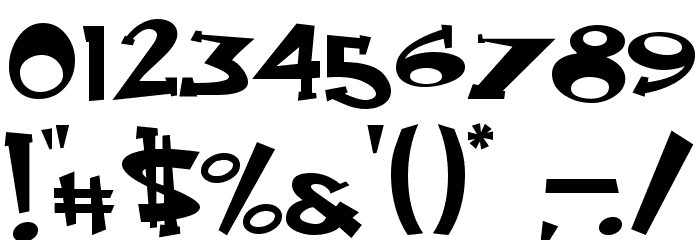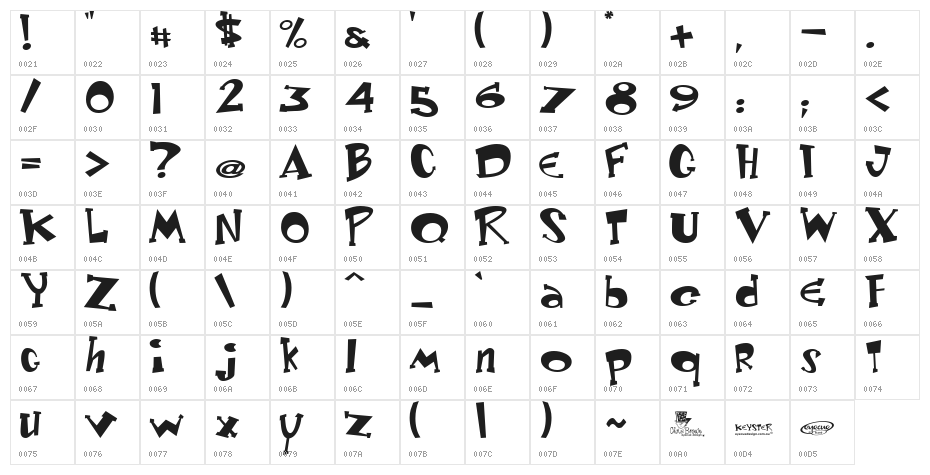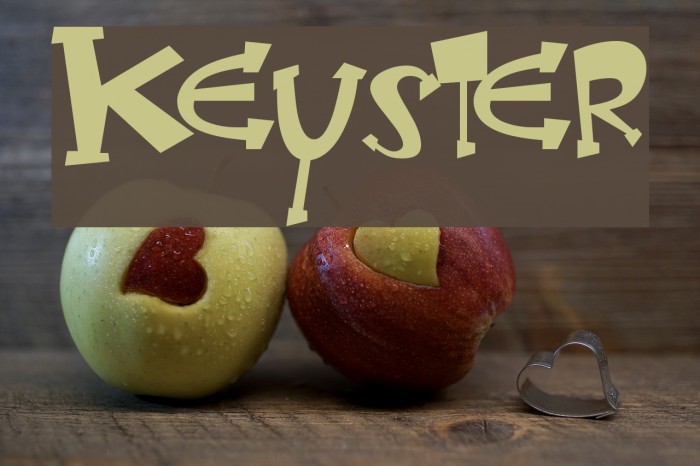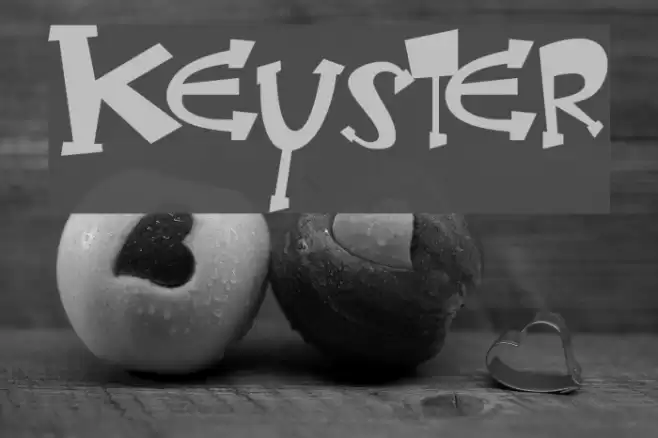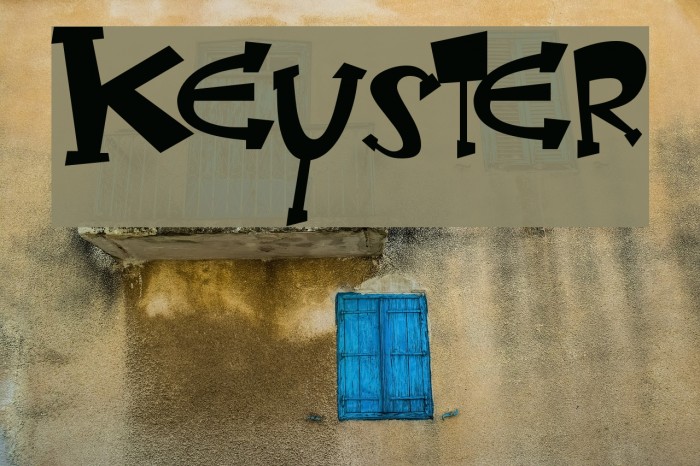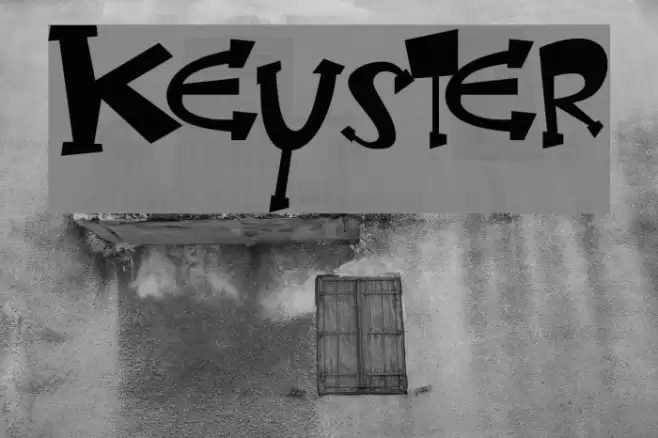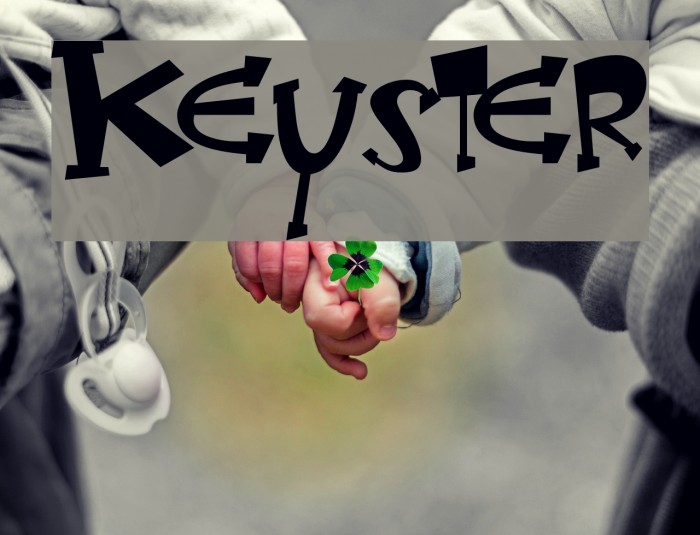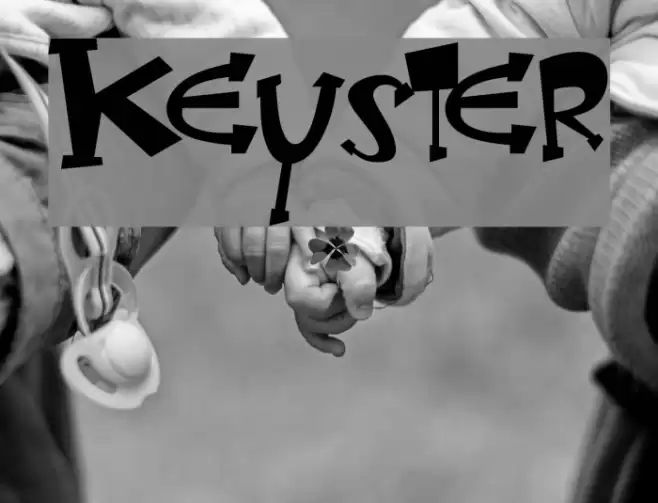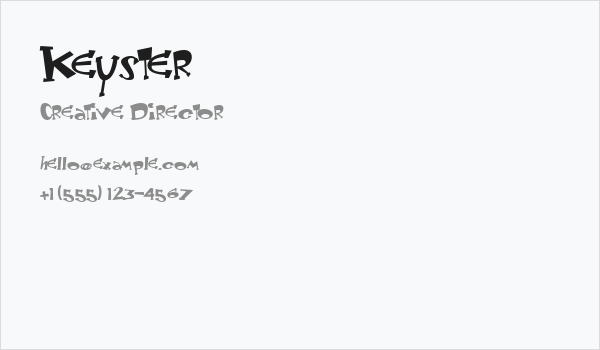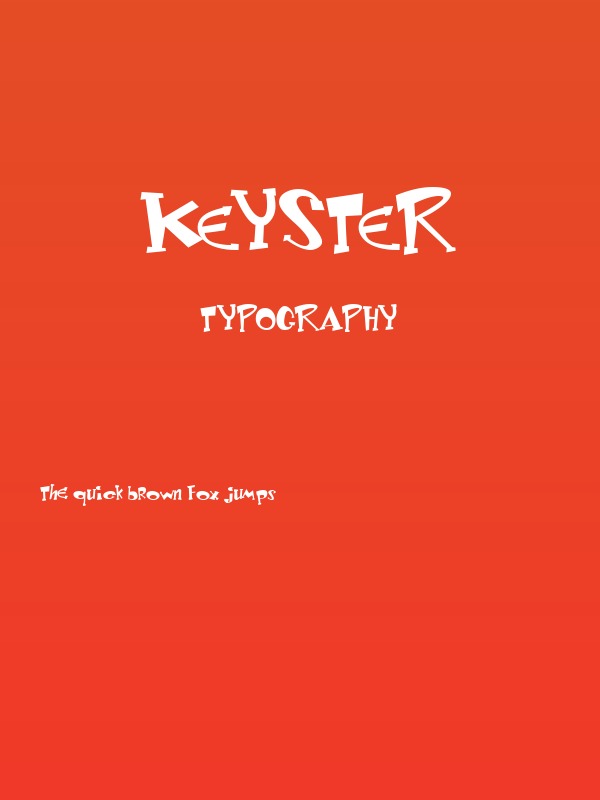
Keyster Font
Keyster Description
This font features a playful and whimsical design with exaggerated, uneven strokes and a hand-drawn appearance. The characters are bold and dynamic, with varying heights and widths that create a sense of movement and energy. The uppercase and lowercase letters maintain a consistent style, with quirky angles and curves that add to the font's charm. Numbers and special characters are equally expressive, making this font suitable for creative and informal projects. Its unique style captures attention and conveys a sense of fun and creativity.